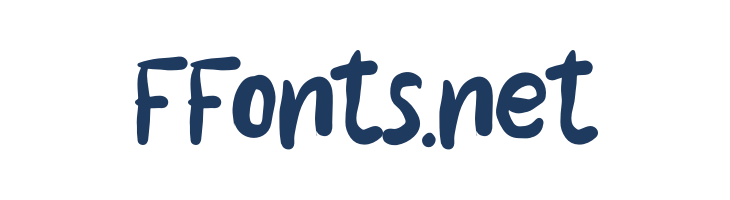
Youth Crew DEMO Font
Youth Crew DEMO Description
A playful, handwritten style font with irregular, rounded characters that resemble casual, childlike handwriting.
| Overall Style | Casual, Playful, Handwritten |
| Use Case | Children's books, informal branding, creative projects, posters, invitations. |